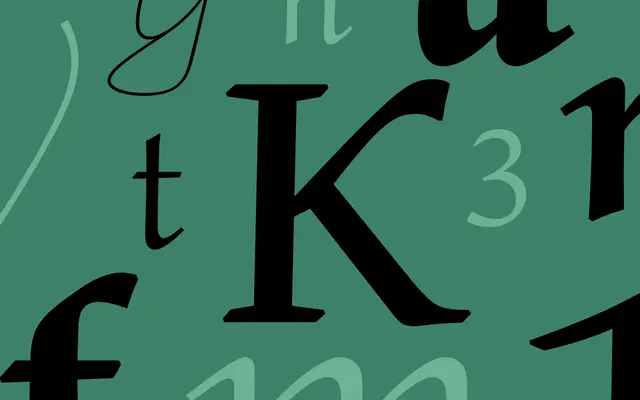
Amarelle Chancery
Dalton Maag · Ben Jones · 2025
A chancery script in the Amarelle suite, reinterpreting Hermann Zapf's 1979 chancery alongside its Sans and Serif siblings.
Dalton Maag's Amarelle Chancery is a chancery script by Ben Jones, designed and developed 2025. It runs Hairline to Black with matching italics and is the third member of the Amarelle suite alongside Amarelle Sans and Amarelle Serif. OpenType features include alternate ampersand, descending k, short tail Q and swash capitals. Latin coverage supports over 790 languages.
Dalton Maag describes Amarelle Chancery as part of the Amarelle suite, inspired by Hermann Zapf's chancery of 1979, drawing on shared features to connect with its Sans and Serif companions.